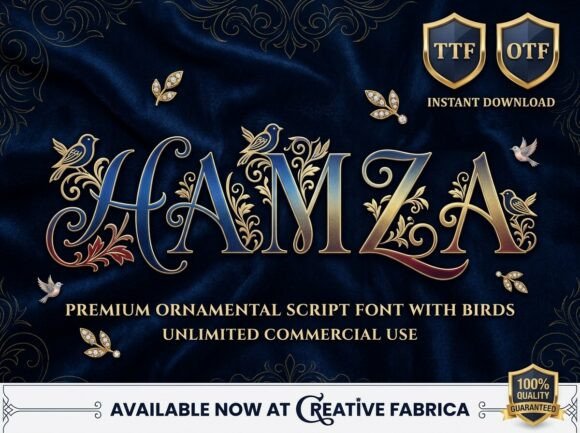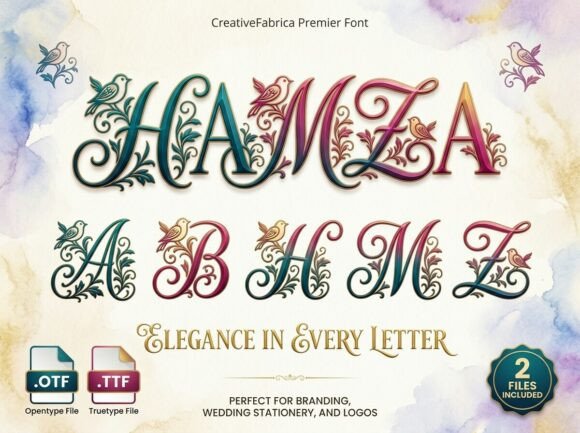
Introducing Hamza Font: The Epitome of Regal Elegance
In the world of typography, few fonts capture the essence of luxury and sophistication as effortlessly as Hamza. This premium ornamental script is designed for creators who demand the highest level of elegance and refinement in their work. With its delicate bird motifs, golden filigree accents, and classical calligraphy, Hamza is the perfect choice for those seeking to add a touch of majesty to their designs.
The Inspiration Behind Hamza
Hamza font is a masterful blend of traditional calligraphy and ethereal, nature-inspired elements. The inclusion of delicate bird motifs and golden filigree accents gives the font a unique and distinctive character that sets it apart from more conventional scripts. Each letter is meticulously crafted to act as a standalone centerpiece, offering a “Premium” aesthetic that transforms simple text into a masterpiece.
Design Features of Hamza Font
One of the standout features of Hamza font is its use of graceful swashes and majestic presence. These design elements combine to create a sense of fluidity and movement, making the font ideal for editorial covers, luxury product packaging, and fine art prints. The font’s ornate details and elegant lines evoke a sense of refinement and luxury, making it perfect for projects that require a high level of sophistication.
Applications of Hamza Font
Hamza font is incredibly versatile and can be used in a wide range of applications. Some of the most popular uses for this font include:
- Editorial Covers: Add a touch of elegance to magazine covers, book covers, and other editorial projects with Hamza’s sophisticated script.
- Luxury Product Packaging: Elevate your brand’s luxury product packaging with Hamza’s majestic presence and golden filigree accents.
- Fine Art Prints: Create stunning fine art prints that showcase Hamza’s delicate bird motifs and classical calligraphy.
Why Choose Hamza Font?
For designers and crafters seeking to create truly exceptional work, Hamza font offers a range of benefits. These include:
- Unparalleled Elegance: Hamza’s sophisticated script and ornate details make it the perfect choice for projects that demand a high level of luxury and refinement.
- Versatility: With its wide range of applications, Hamza font can be used in everything from editorial projects to luxury product packaging and fine art prints.
- Attention to Detail: Each letter in Hamza font is meticulously crafted to act as a standalone centerpiece, ensuring that your designs are always of the highest quality.
Tips for Using Hamza Font
To get the most out of Hamza font, consider the following tips:
- Use it Sparingly: Due to its ornate nature, Hamza font is best used sparingly. Consider using it for headings or titles, and a simpler font for body text.
- Experiment with Colors: Hamza font looks stunning in a range of colors, but it’s particularly effective in metallic colors like gold and silver.
- Pair it with Simple Backgrounds: To really make Hamza font shine, pair it with simple backgrounds that won’t compete with the font’s ornate details.
Hamza font is a true masterpiece of typography, offering a unique blend of classical calligraphy and ethereal, nature-inspired elements. With its delicate bird motifs, golden filigree accents, and majestic presence, it’s the perfect choice for designers and crafters seeking to add a touch of luxury and sophistication to their work. Whether you’re working on editorial covers, luxury product packaging, or fine art prints, Hamza font is sure to elevate your designs to new heights.